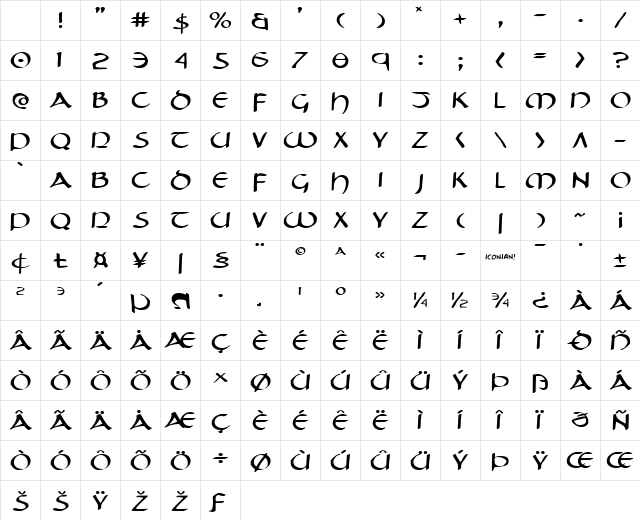
Complete Tristram Expanded glyph index. Displaying only characters natively supported by Tristram Expanded font.
Tristram is a composed and adaptable typeface that performs quietly and consistently across a wide range of design contexts.